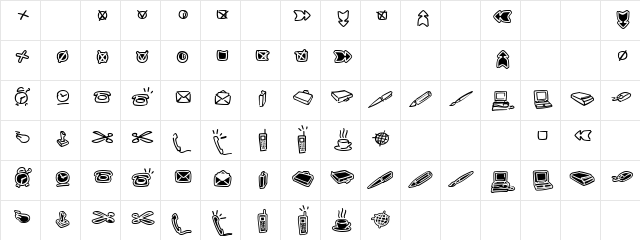
LTZigibacks One Regular
Design Context for LTZigibacks One Typeface
LTZigibacks One is a composed and adaptable typeface that performs quietly and consistently across a wide range of design contexts.